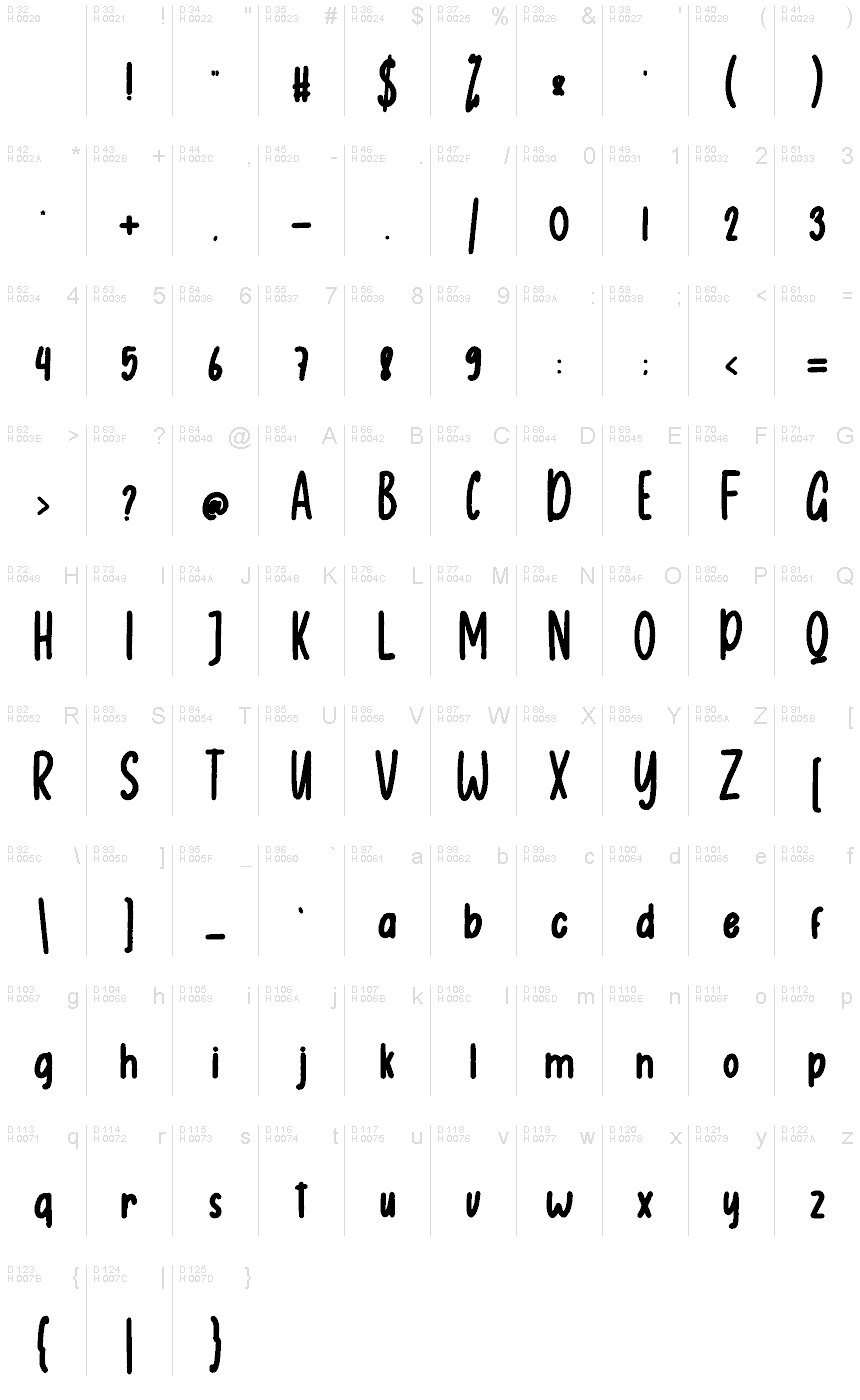
Orenhead
Introducing Orenhead, the new hand-drawn script font provided absolutely free by Skiiller Studio. Orenhead offers a classic design, characterized by rounded letter bodies, irregular curves, and bold lines that contrast against the rounded appearance, making the font playful and fun. The font is highly suitable for branding, labels, headlines, and quotes. It can be used as well for posters, book titles, and packaging design.
Orenhead was inspired by a classic marker pen script and it was drawn, designed, and produced from scratch, making it a unique and striking script font.